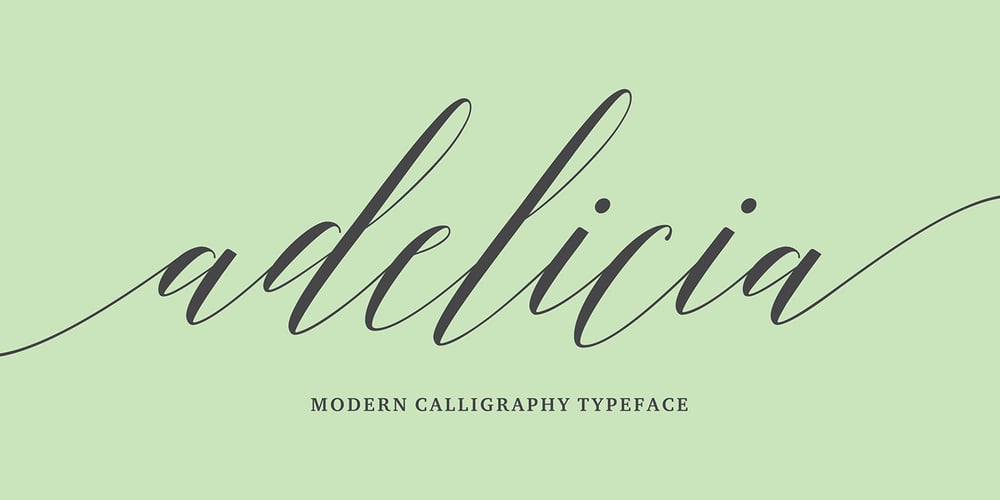
Adelicia Script Font Family was designed by Seniors Studio and published by Seniors Studio. Adelicia Script contains 4 styles and family package options. Adelicia Script is a stylish calligraphy font that features a varying baseline, smooth line, classic and elegant touch. Can be used for various purposes.such as headings, signature, logos, wedding invitation, t-shirt, letterhead, signage, lable, news, posters, badges etc.Adelicia Script features 565+ glyphs and 264 alternate characters. including initial and terminal letters, alternates, ligatures and multiple language support.To enable the OpenType Stylistic alternates, you need a program that supports OpenType features such as Adobe Illustrator CS, Adobe Indesign & CorelDraw X6-X7, Microsoft Word 2010 or later versions.There are additional ways to access alternates/swashes, using Character Map (Windows), Nexus Font (Windows), Font Book (Mac) or a software program such as PopChar (for Windows and Mac).Copy any of the extra characters to paste into your favourite text editor/app.